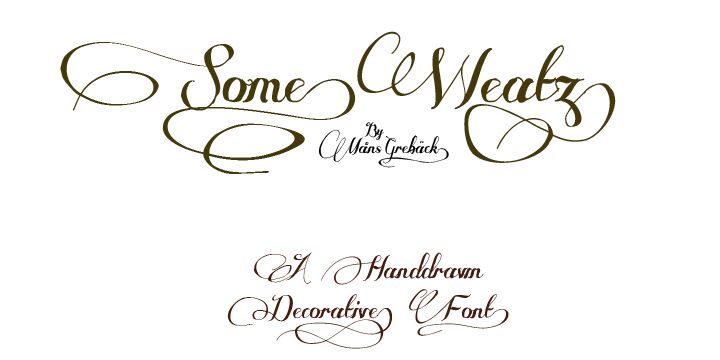
Some Weatz Swashes by Måns Grebäck is a free calligraphic script with extravagant, high-contrast strokes and long looping flourishes. The letters shift between hairline curves and broad, pointed downstrokes. Their overlapping swashes create a dense, theatrical silhouette.
In packaging, the ornate drawing suits perfume labels and confectionery boxes aimed at an elaborate, couture-like impression. It also fits fashion editorials, book covers, and formal event invitations, especially those centered on beauty, romance, or period drama, where the sweeping lines can extend into borders or decorative filigree rather than serving as neutral lettering alone.